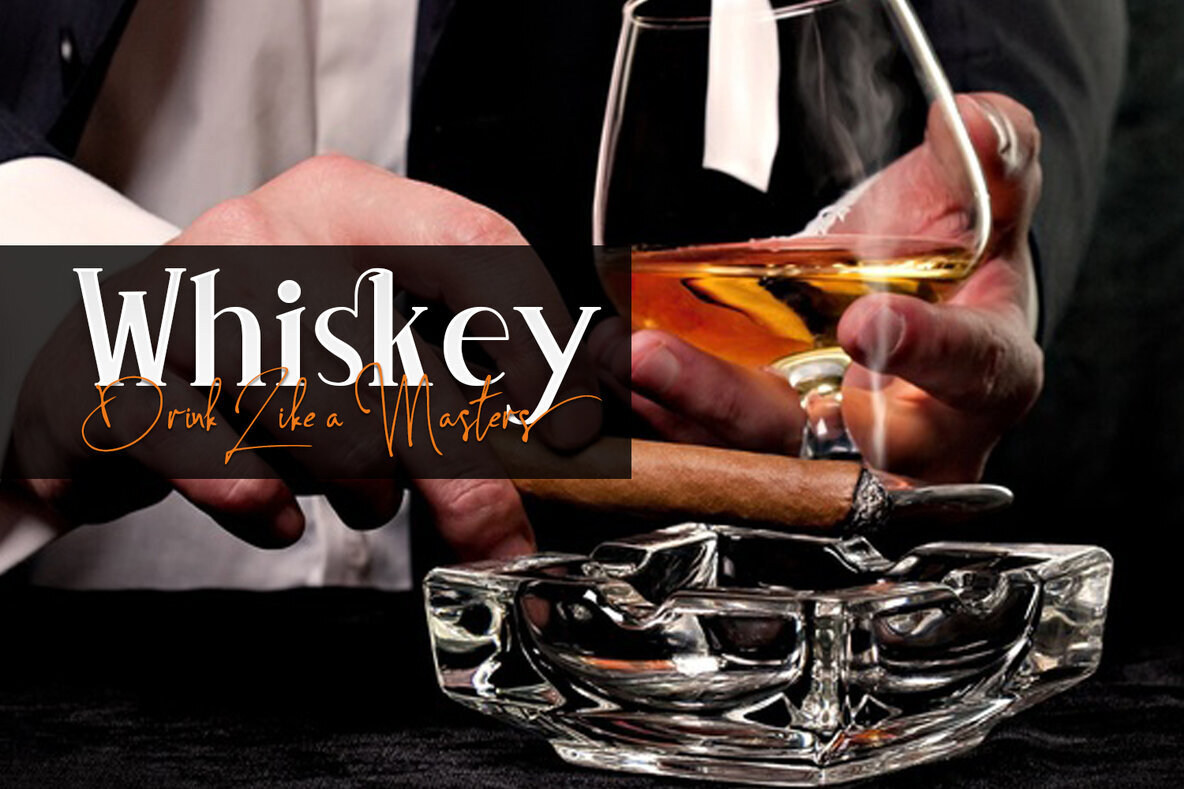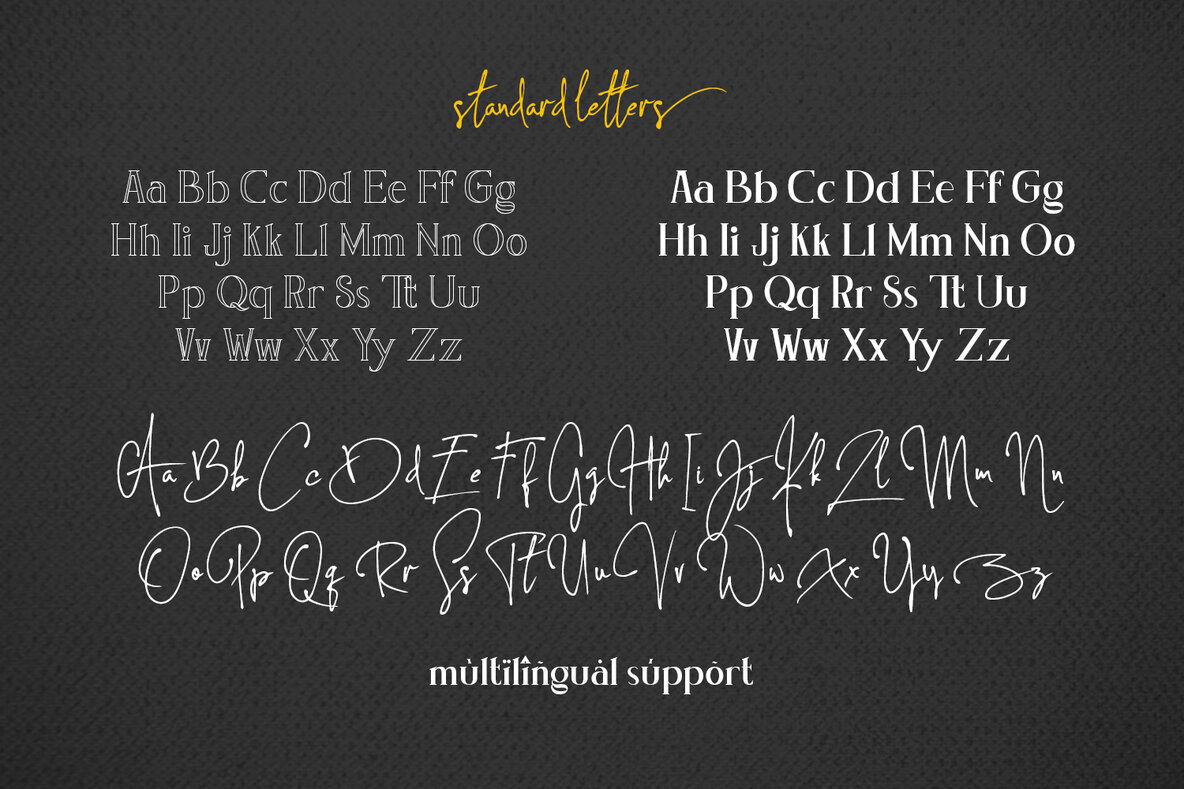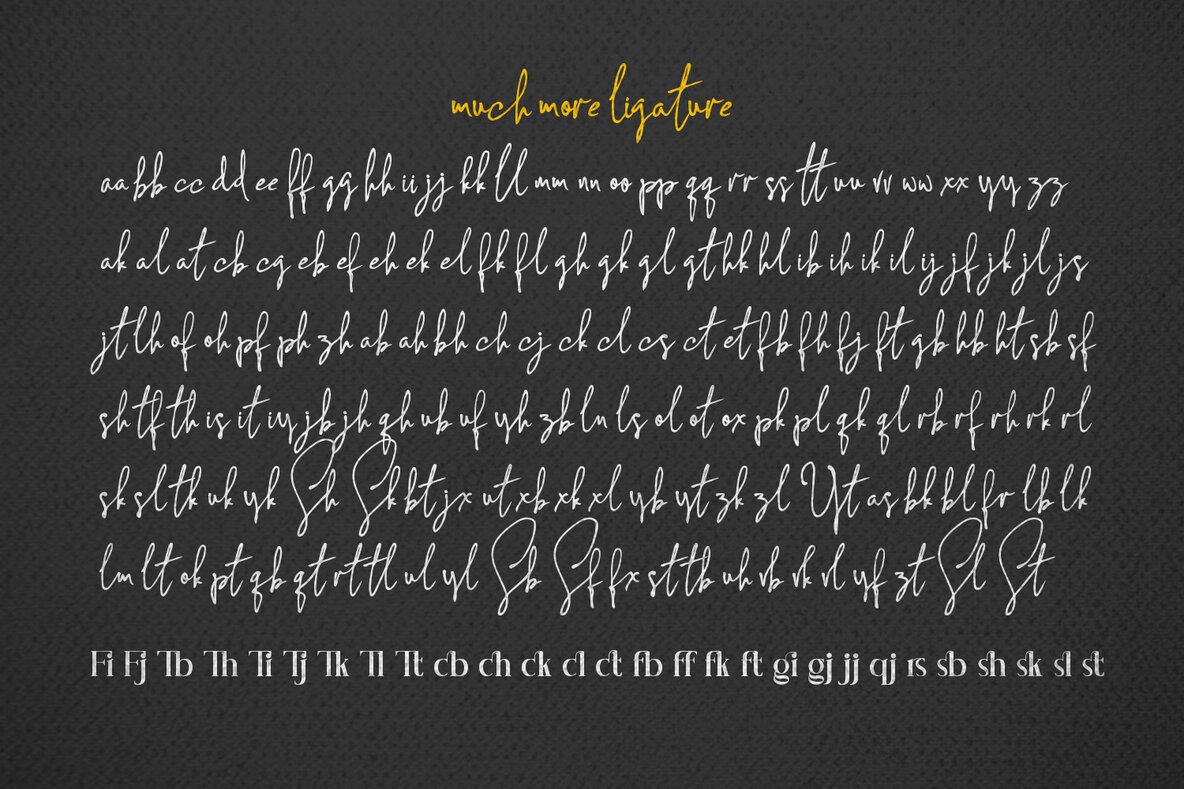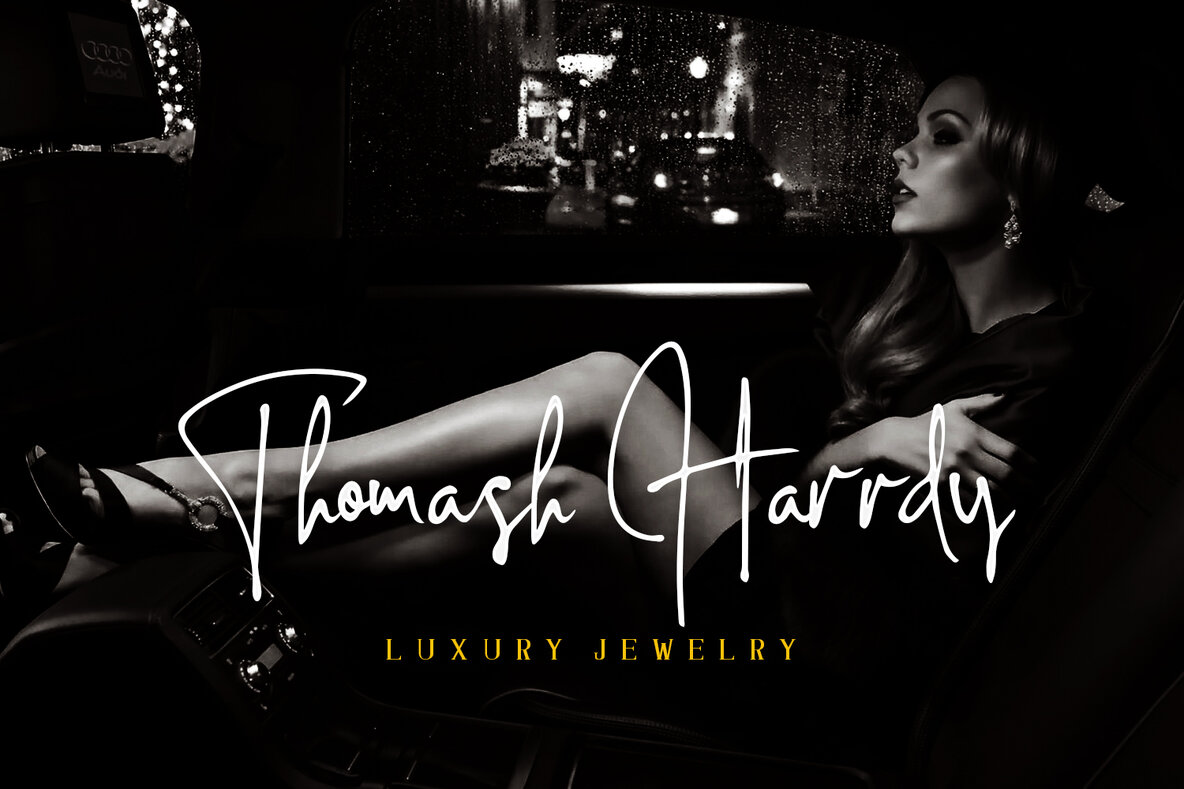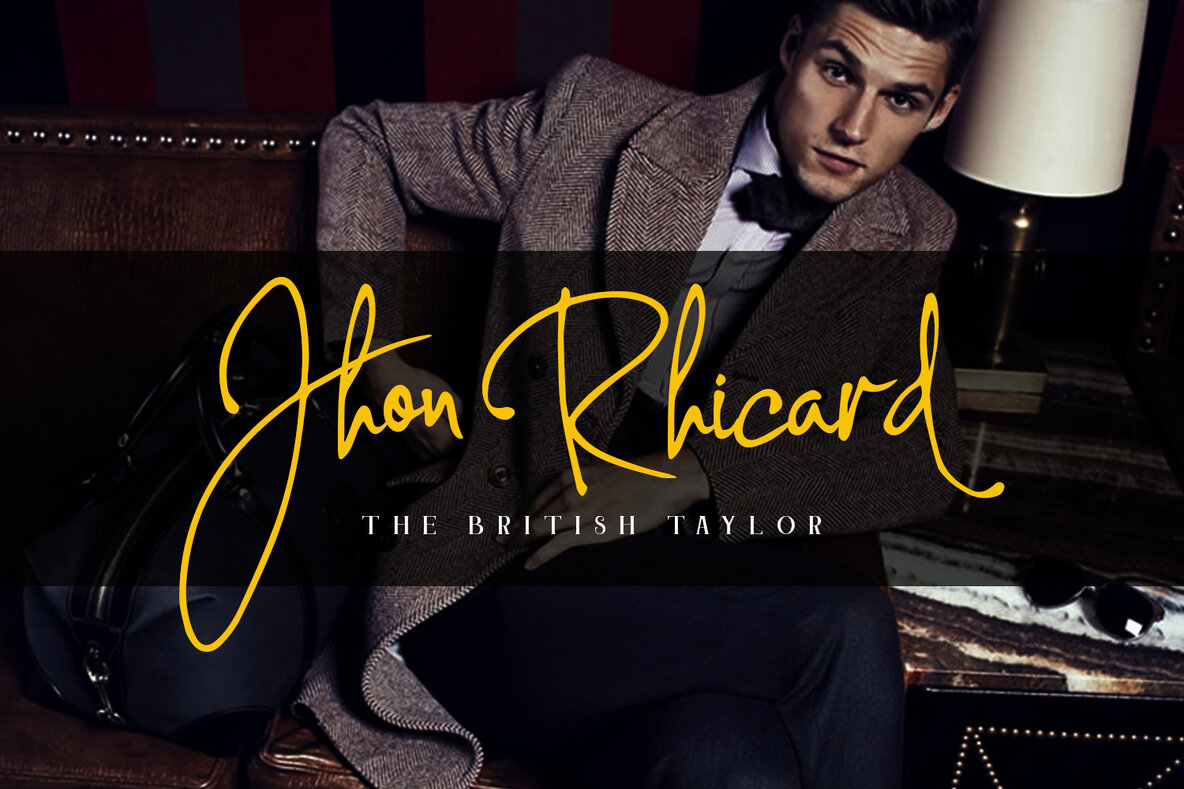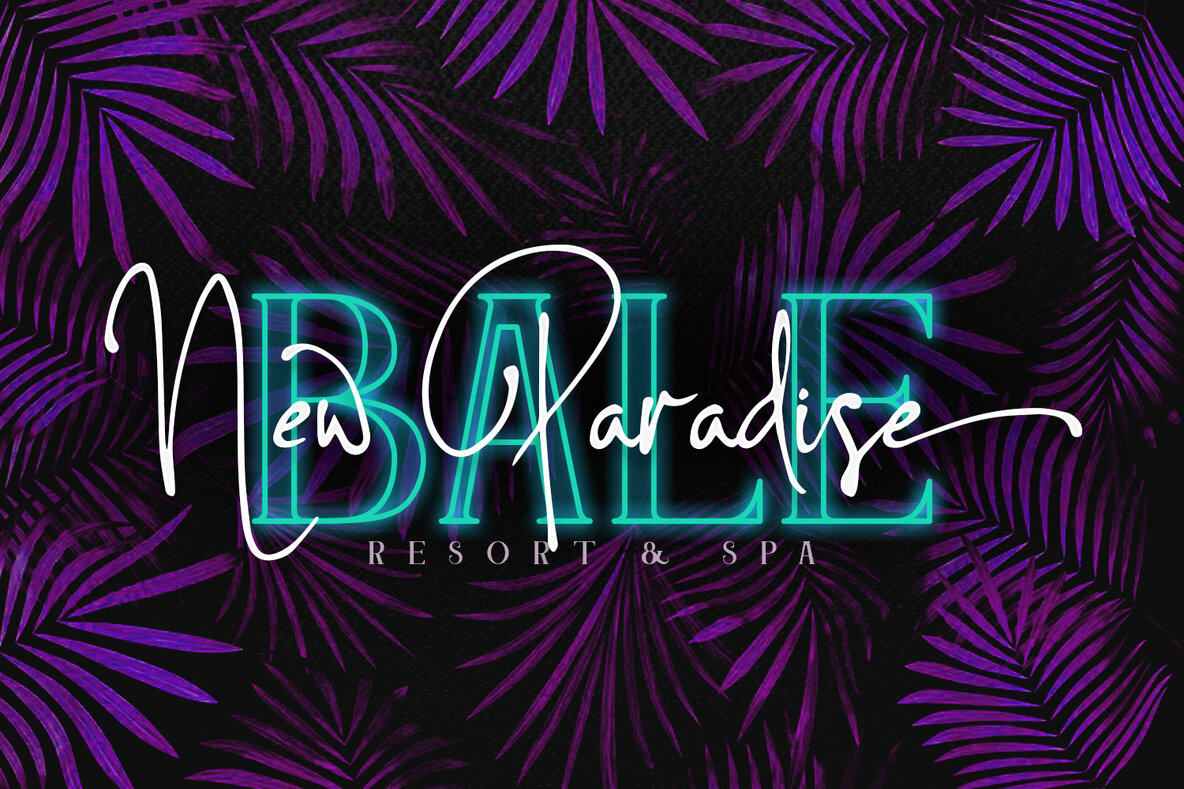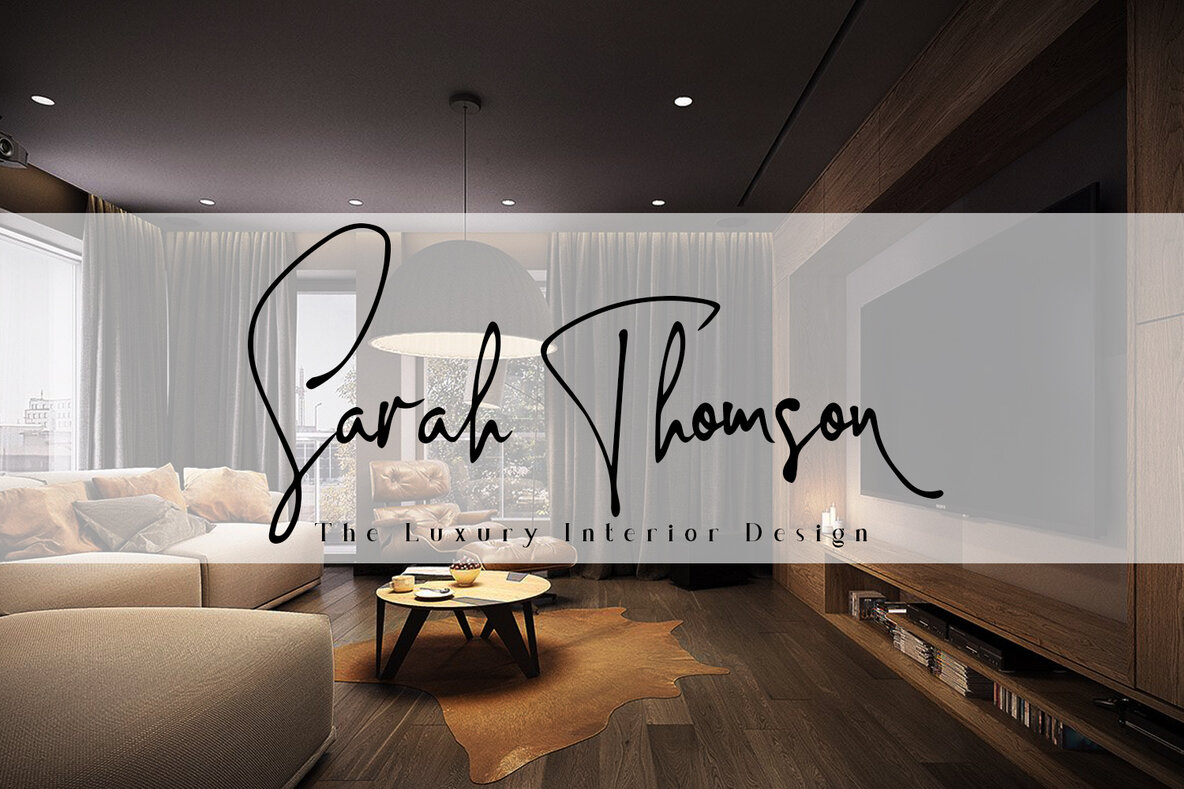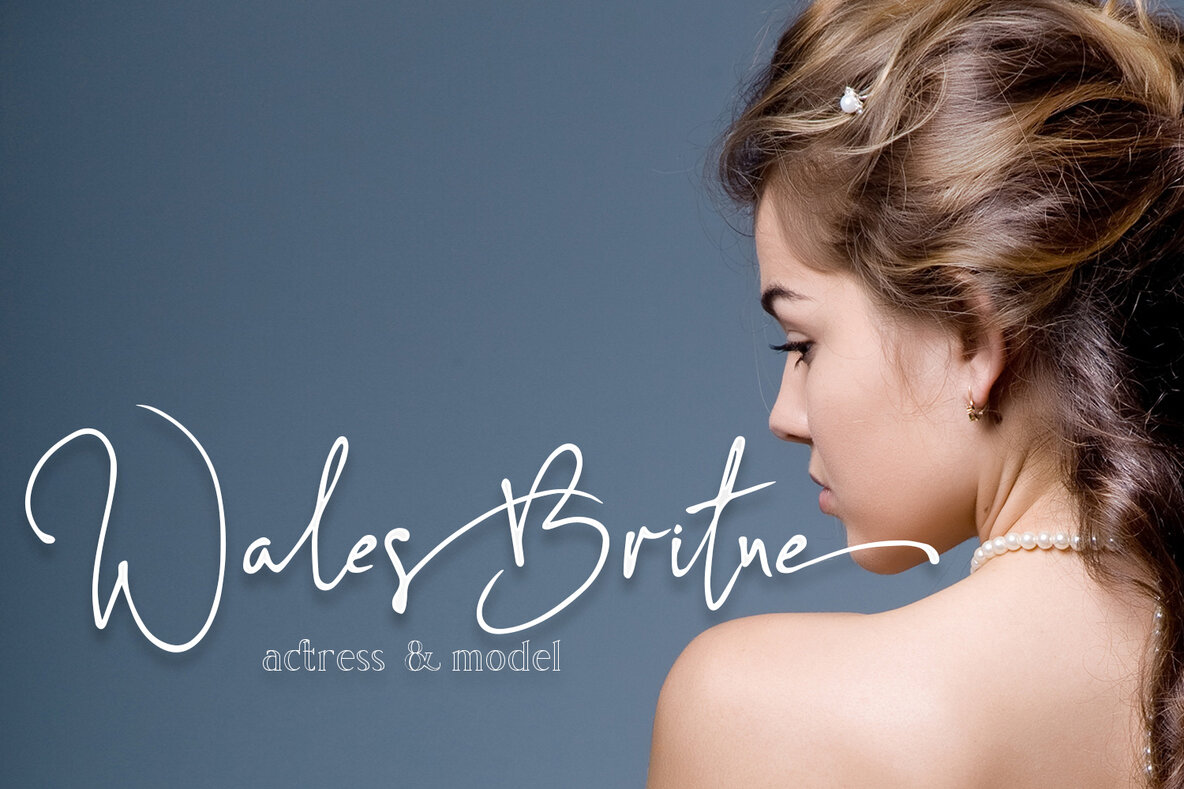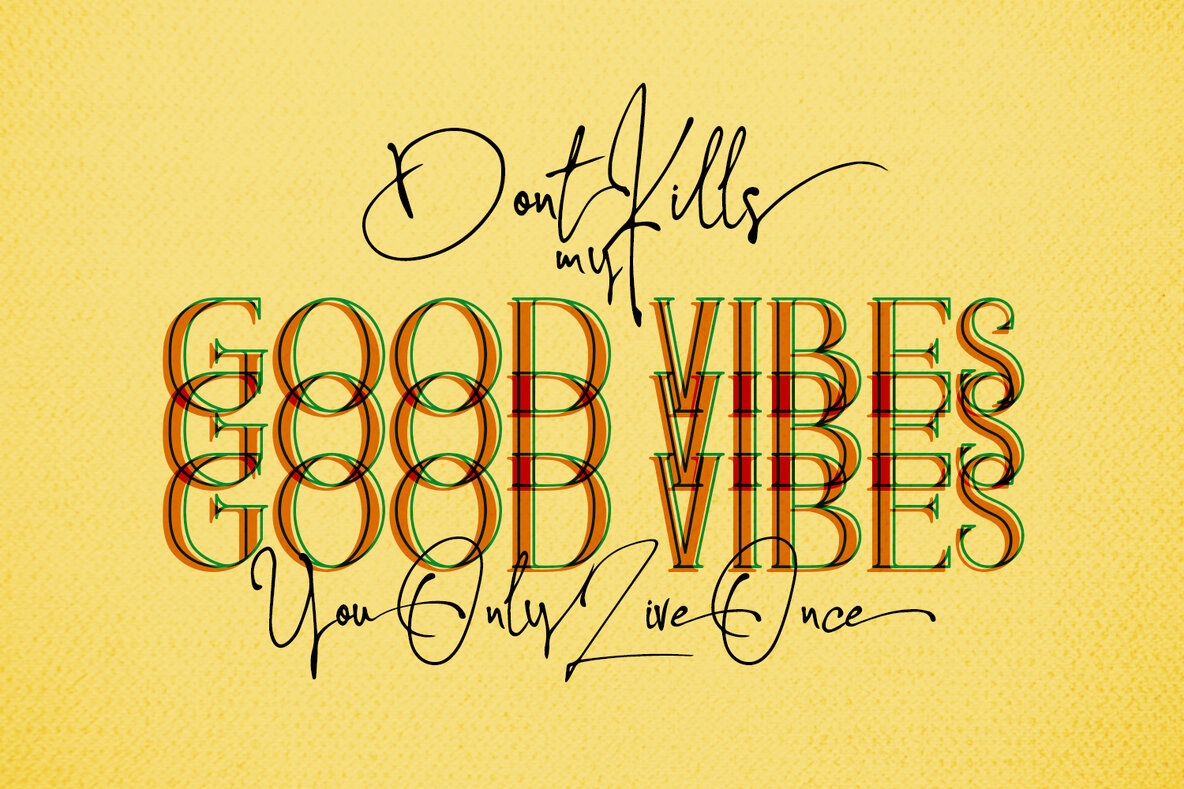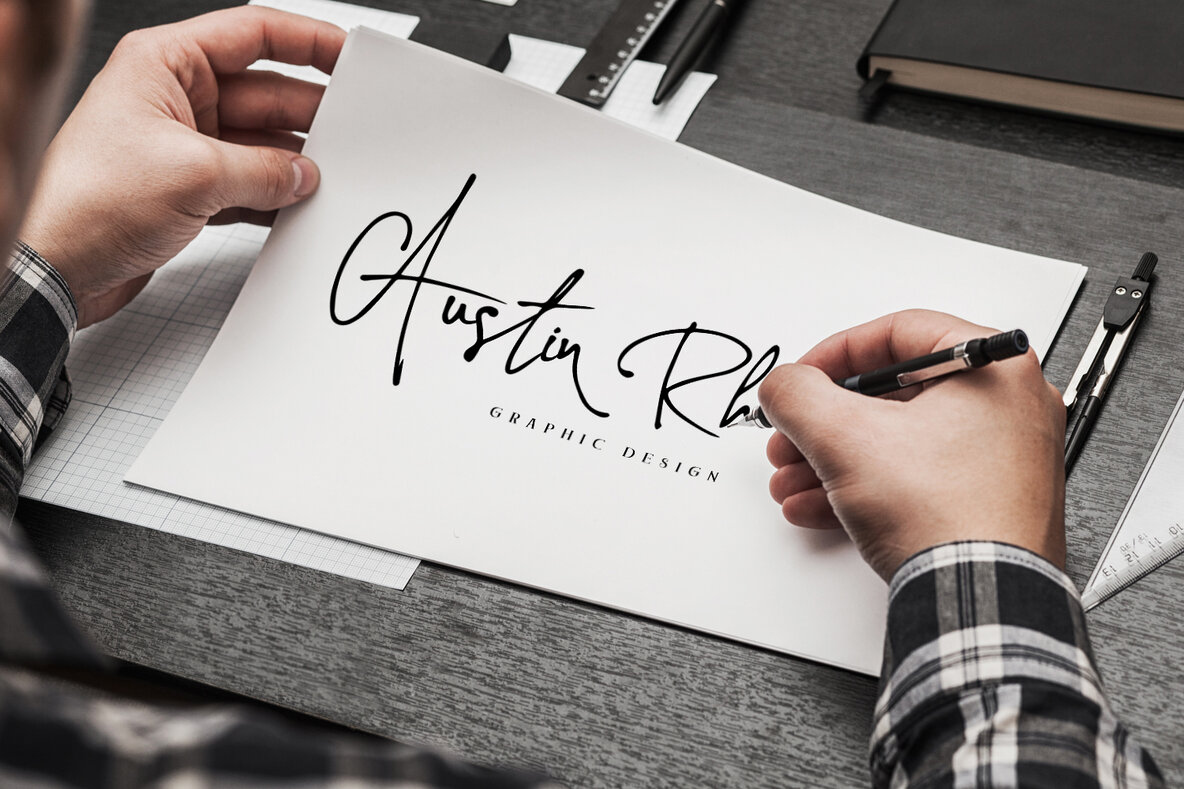
Concetta Kalvani Font
Concetta Kalvani is a distinctive font that offers both elegance and versatility, combining classic serif style with a signature touch. Designed with two appealing variations—regular and outline—it is ideal for enhancing visual projects across a spectrum of design fields. This font is particularly well-suited for poster design, book covers, and merchandise. It brings a touch of sophistication to fashion campaigns and newsletters alike, while complementing the branding needs for diverse advertising contexts.Concetta Kalvani: Classic Signature Serif Font